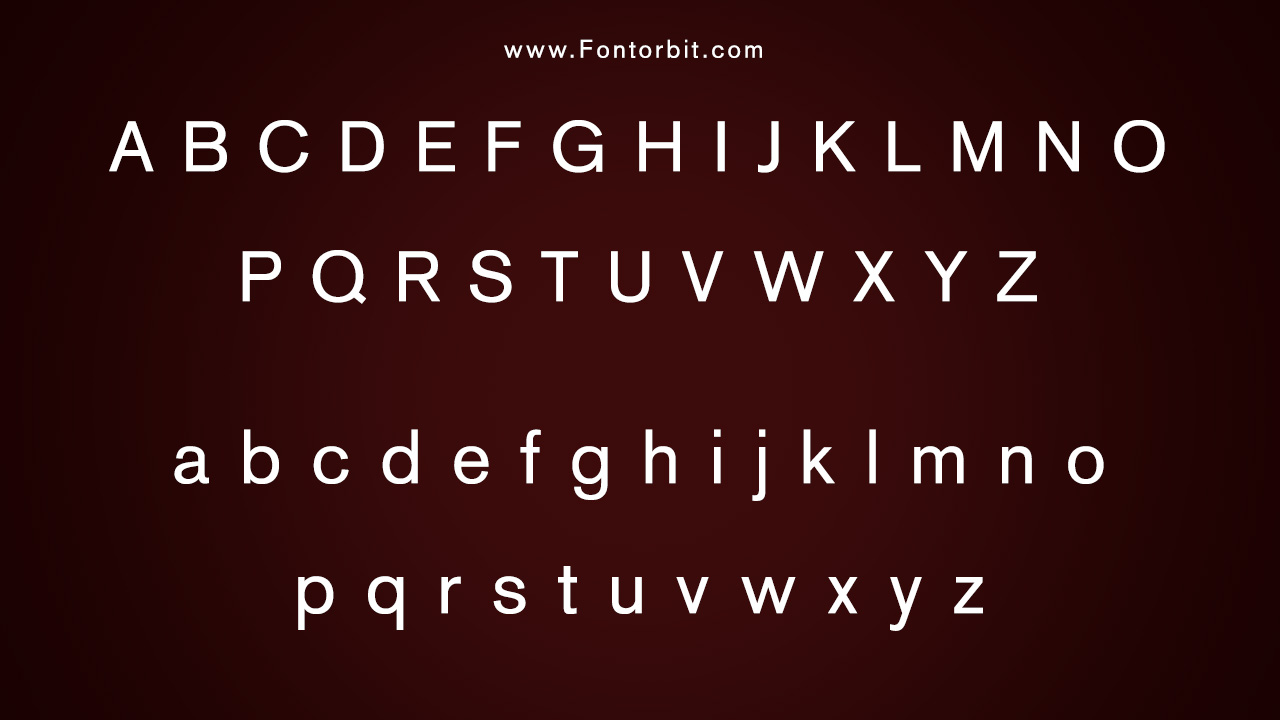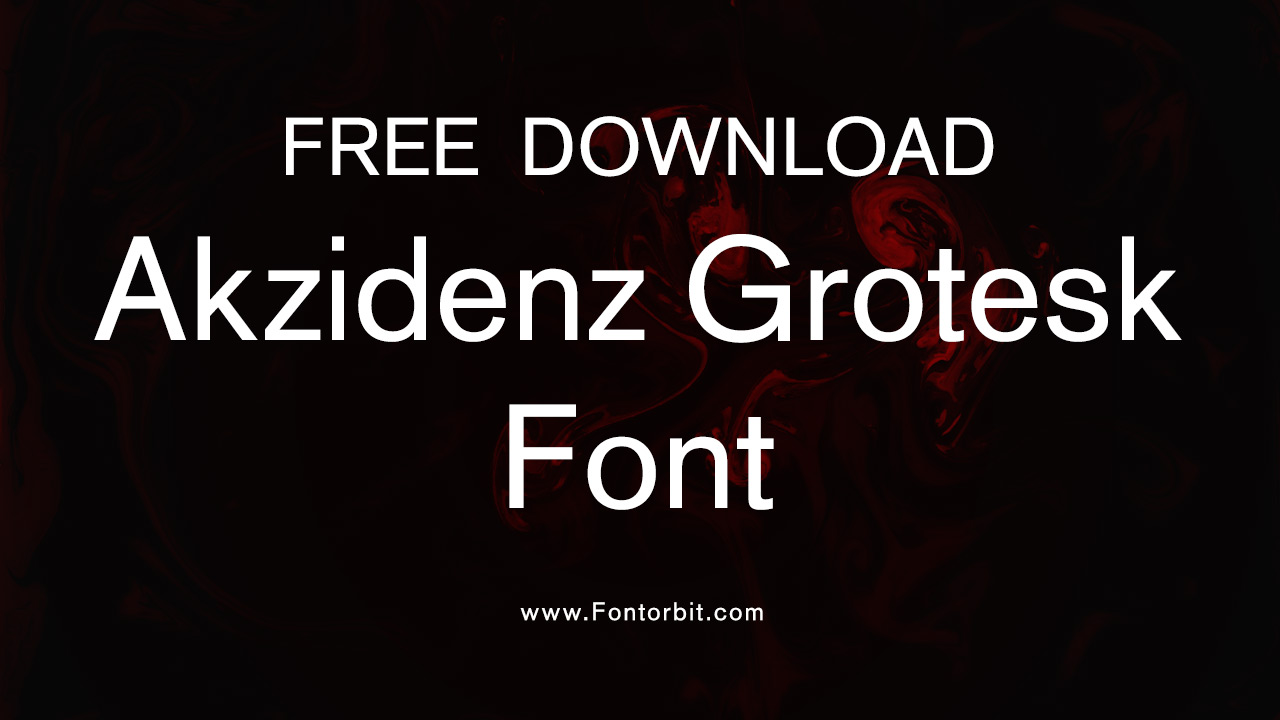
Akzidenz-Grotesk is a sans-serif typeface originally released in 1896 by the Berthold Type Foundry in Germany. It was one of the first sans-serif typefaces to gain widespread use and is regarded as the precursor to many modern grotesque fonts. Its clean, no-frills design with neutral character forms makes it a versatile option for both print and digital use.
Akzidenz-Grotesk Family Includes
Akzidenz-Grotesk comes with a wide array of styles and weights, making it suitable for both text and display use. Its versatility has kept it relevant for over a century.
- Akzidenz-Grotesk Black
- Akzidenz-Grotesk Light
- Akzidenz-Grotesk Light Italic
- Akzidenz-Grotesk Regular
- Akzidenz-Grotesk Italic
- Akzidenz-Grotesk Medium
- Akzidenz-Grotesk Medium Italic
- Akzidenz-Grotesk Bold
- Akzidenz-Grotesk Bold Italic
- Akzidenz-Grotesk Extra Bold
- Akzidenz-Grotesk Extra Bold Italic
- Akzidenz-Grotesk Super
- Akzidenz-Grotesk Super Italic
- Akzidenz-Grotesk Condensed Light
- Akzidenz-Grotesk Condensed Light Italic
- Akzidenz-Grotesk Condensed Regular
- Akzidenz-Grotesk Condensed Italic
- Akzidenz-Grotesk Condensed Medium
- Akzidenz-Grotesk Condensed Medium Italic
- Akzidenz-Grotesk Condensed Bold
- Akzidenz-Grotesk Condensed Bold Italic
- Akzidenz-Grotesk Condensed Extra Bold
- Akzidenz-Grotesk Condensed Extra Bold Italic
- Akzidenz-Grotesk Extended Light
- Akzidenz-Grotesk Extended Light Italic
- Akzidenz-Grotesk Extended Regular
- Akzidenz-Grotesk Extended Italic
- Akzidenz-Grotesk Extended Medium
- Akzidenz-Grotesk Extended Medium Italic
- Akzidenz-Grotesk Extended Bold
- Akzidenz-Grotesk Extended Bold Italic
Due to its timeless design and versatility, Akzidenz-Grotesk works well in various settings. It shines particularly in corporate branding, minimalist design, and editorial layouts.
- Corporate branding and identity
- Advertising and promotional material
- Web and UI design
- Editorial and publication design
- Print packaging
Akzidenz-Grotesk is an enduring classic in the sans-serif genre, influencing many later fonts like Helvetica. Its neutral design makes it an adaptable choice for various design projects. Whether you’re crafting a corporate brand identity or designing a sleek editorial layout, this typeface provides an excellent foundation.
1.Where Is Akzidenz-Grotesk Used?
It’s used in branding, advertising, web design, and editorial layouts.
2.Is Akzidenz-Grotesk The Same As Helvetica?
No, but Helvetica was inspired by Akzidenz-Grotesk.
3.How Many Styles Does Akzidenz-Grotesk Have?
It comes in multiple weights and styles, including regular, bold, italic, and condensed.
4.Can I Use Akzidenz-Grotesk For Web Design?
Yes, its clean design makes it great for digital and web use.
5.Why Is Akzidenz-Grotesk Important?
It’s a pioneering sans-serif that influenced many modern typefaces.